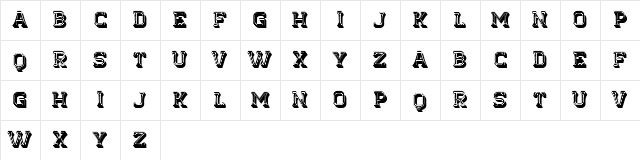
Puthjet Regular Free Font
Puthjet Regular
Design Context for Puthjet
Puthjet is a composed and adaptable typeface that performs quietly and consistently across a wide range of design contexts.